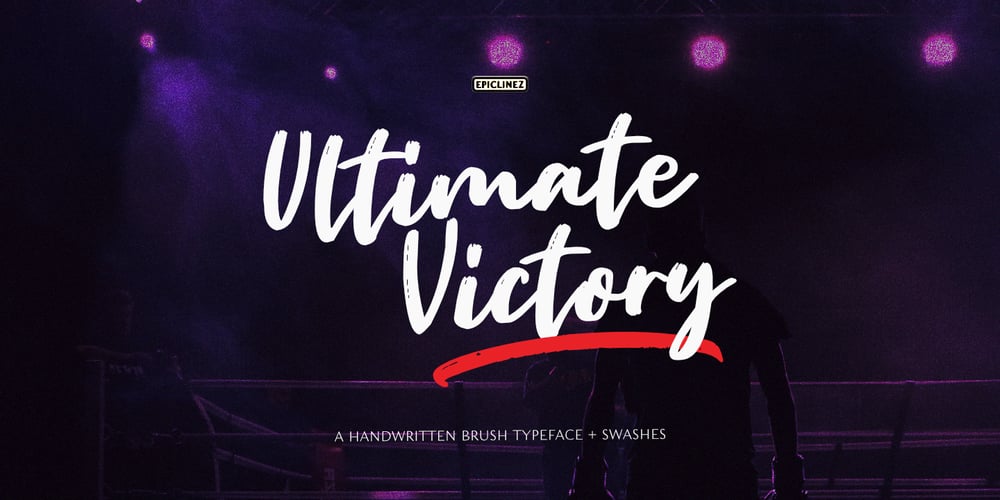
Ultimate Victory Font Family was designed by Aldy Sidik and published by Epiclinez. Ultimate Victory contains 1 styles and family package options. Ultimate Victory is an authentic handwritten brush typeface. This textured script font is suitable for posters, magazines, apparels, movie headlines, packaging and more.